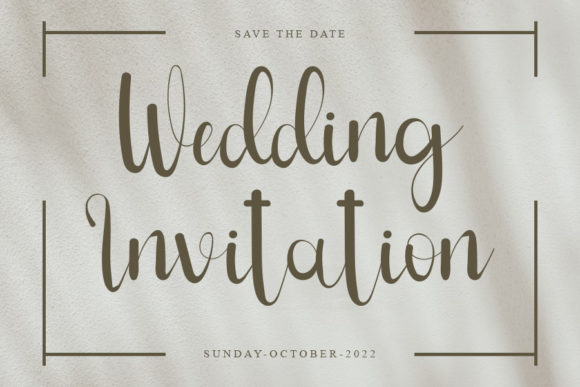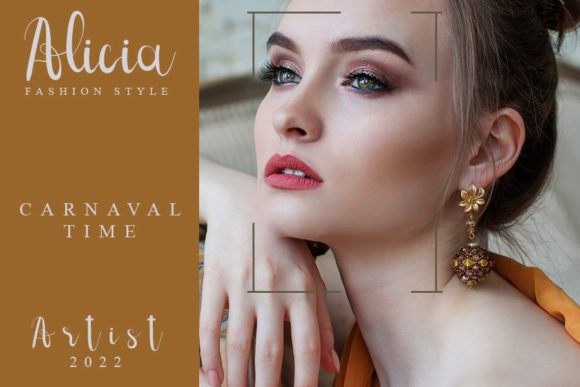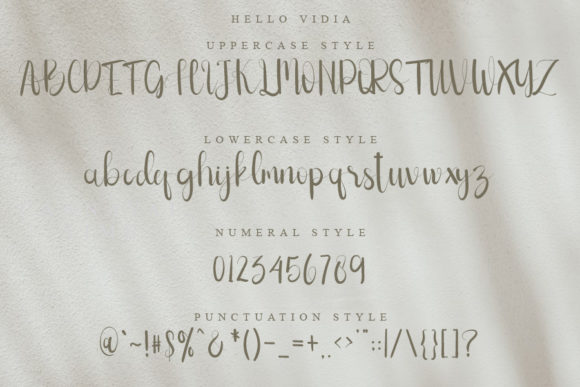
Introduction to Hello Vidia Font
Hello Vidia is a romantic and dainty script font.
It has a classy, elegant and modern look that can be used for logos, branding, invitations, stationery, wedding designs, social media posts, and much more .
Hello Vidia Font offers exceptional quality and versatility, making it a valuable addition to your design toolkit. Whether you’re creating for personal projects or commercial use, Hello Vidia Font delivers professional results.